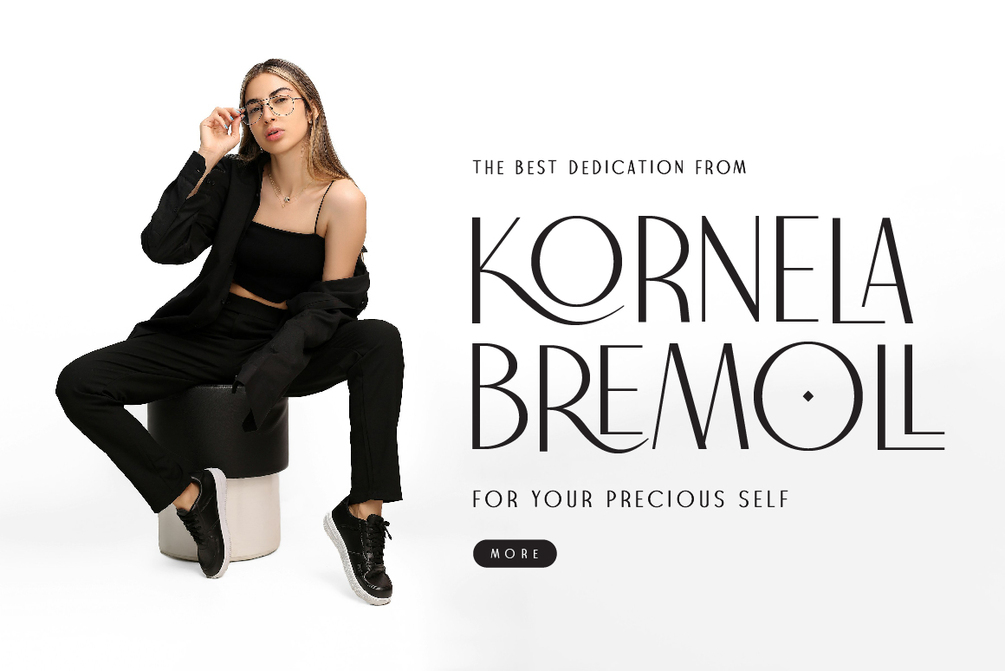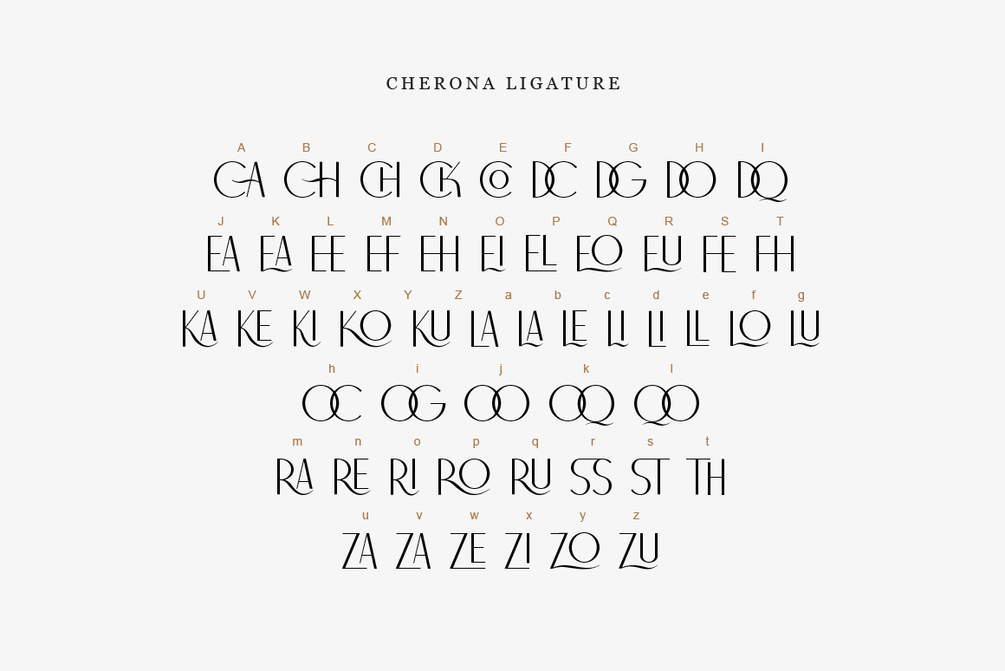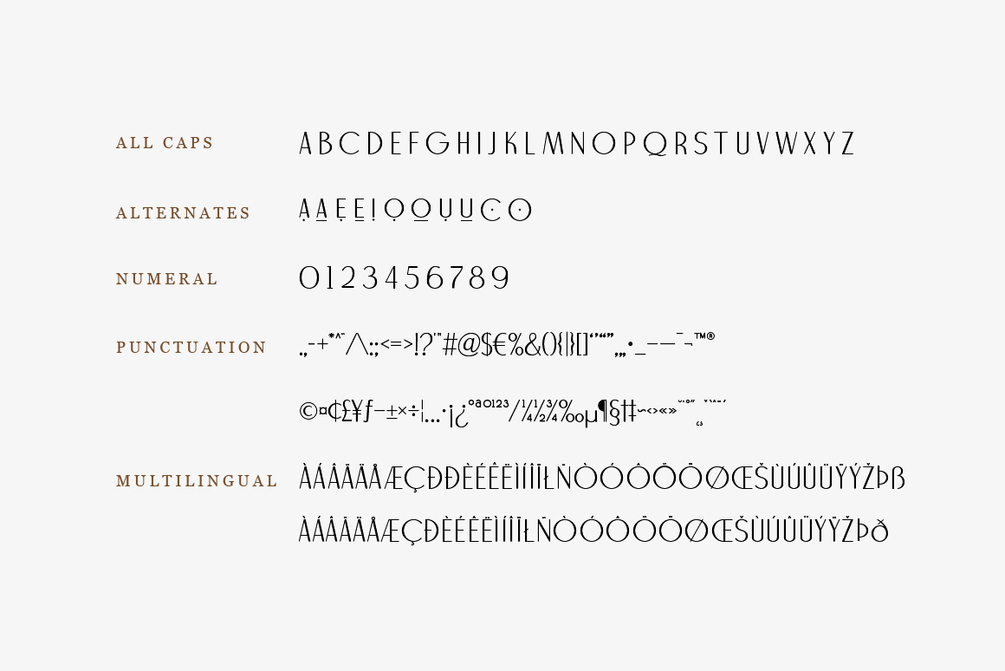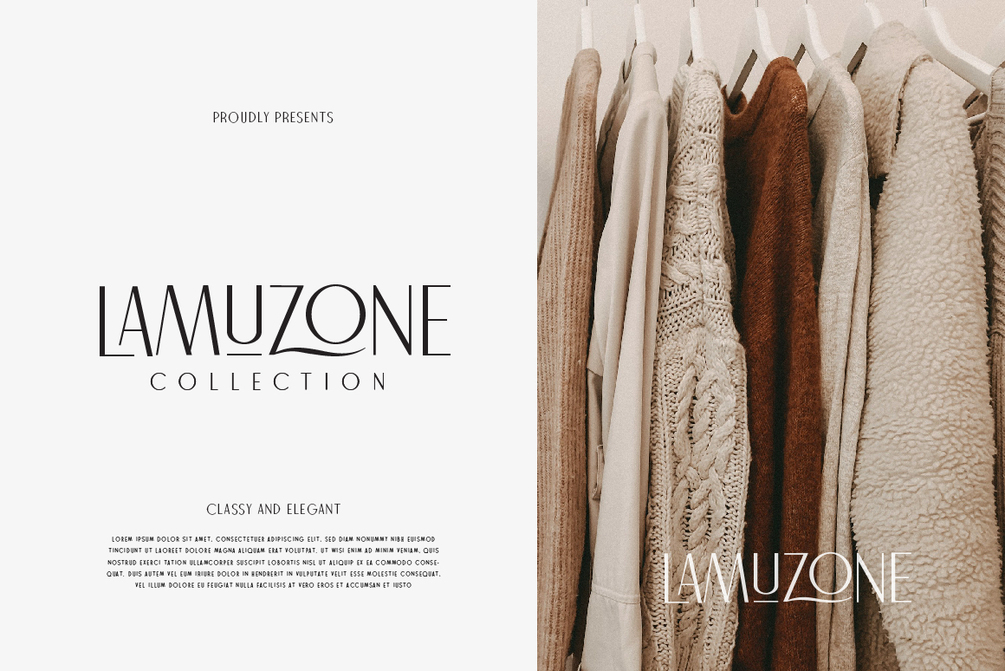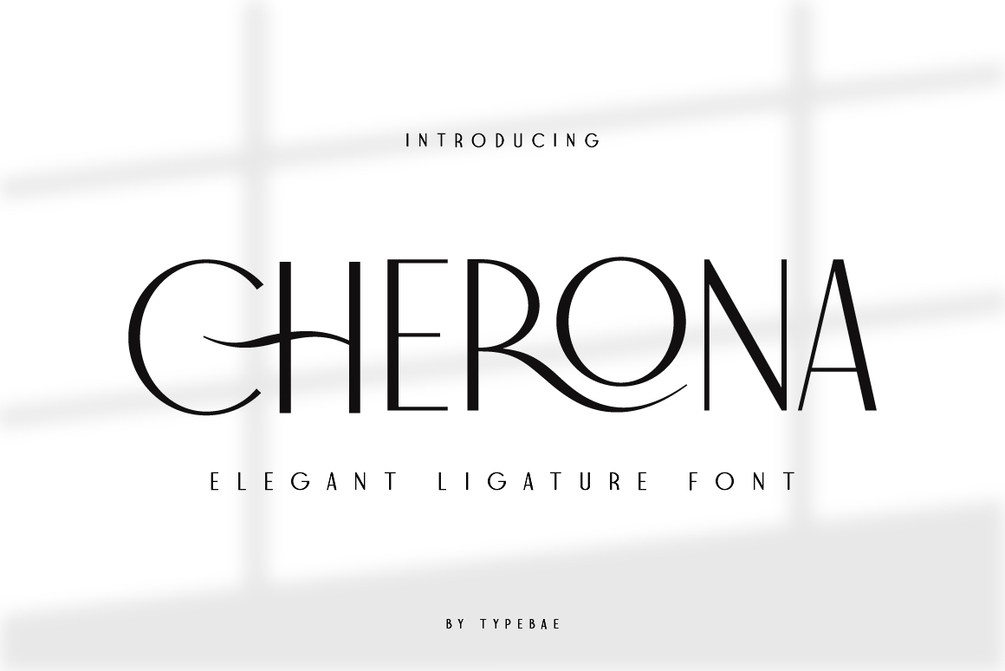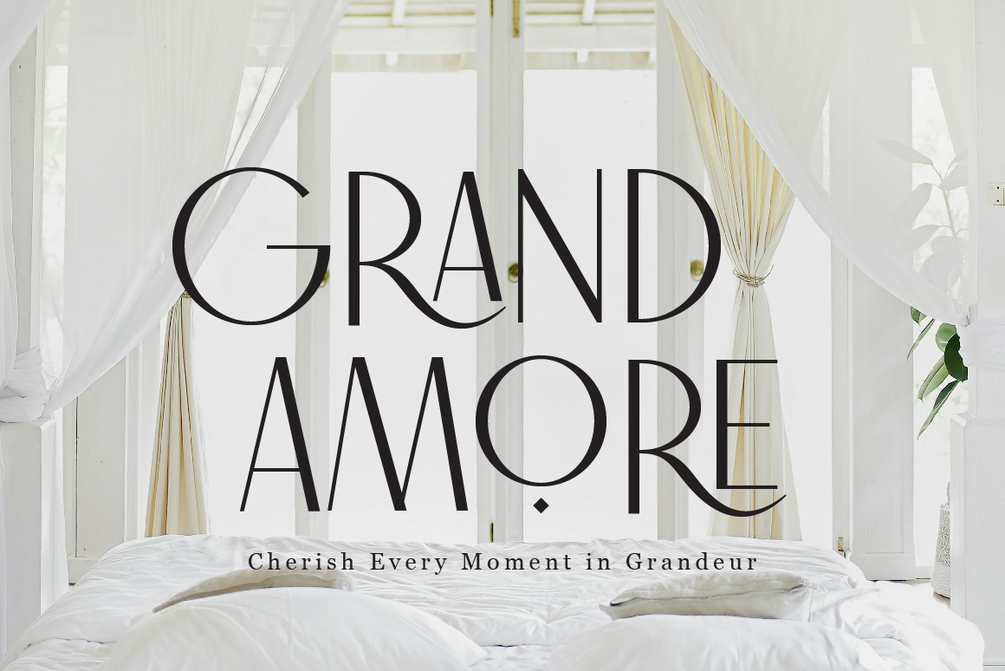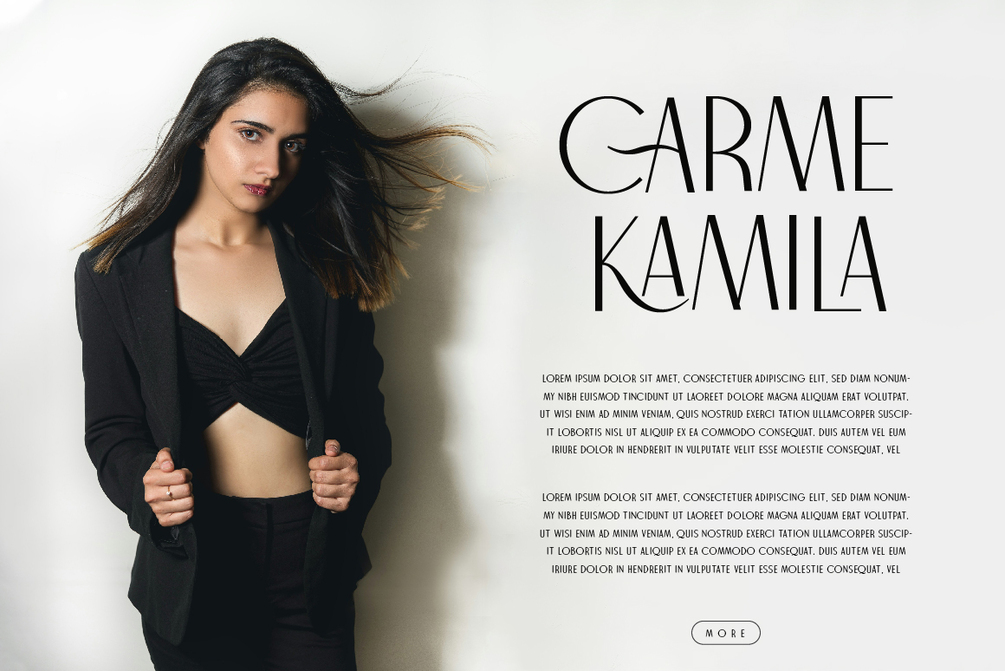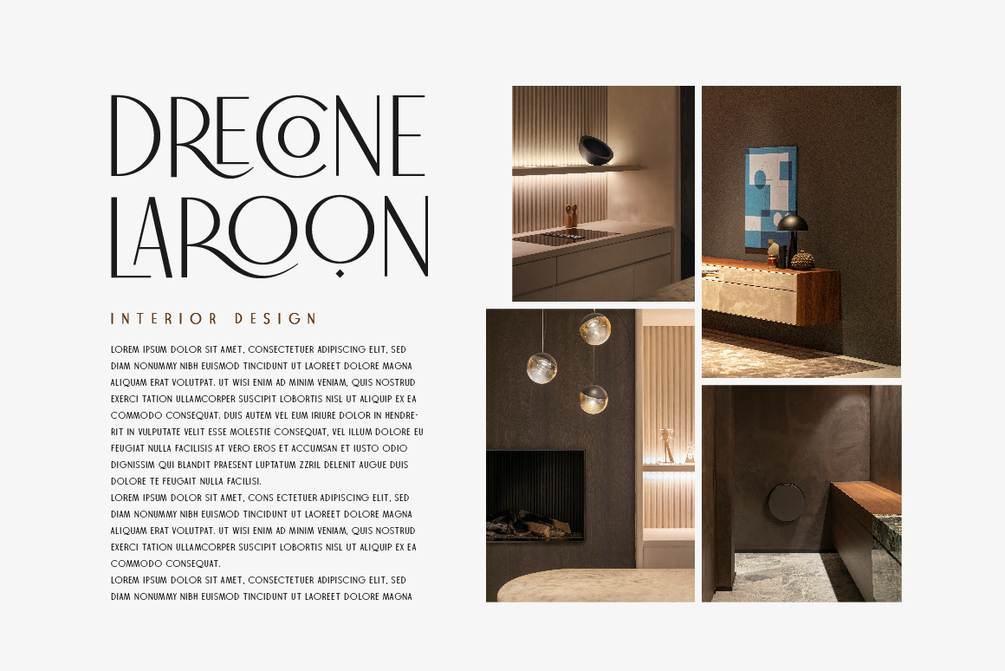
Cherona
Cherona is an elegant and stylish font with beautiful ligatures. It’s a highly versatile typeface that works wonderfully in both large and small sizes. This font perfect for luxury logos, fashion branding, editorial designs, invitations, home décor, book covers, and more. Its refined look adds sophistication to any project.
- All caps
- Stylistic Alternates & Ligatures
- Numerals & Punctuation
- Multilanguage Support & PUA Encoded